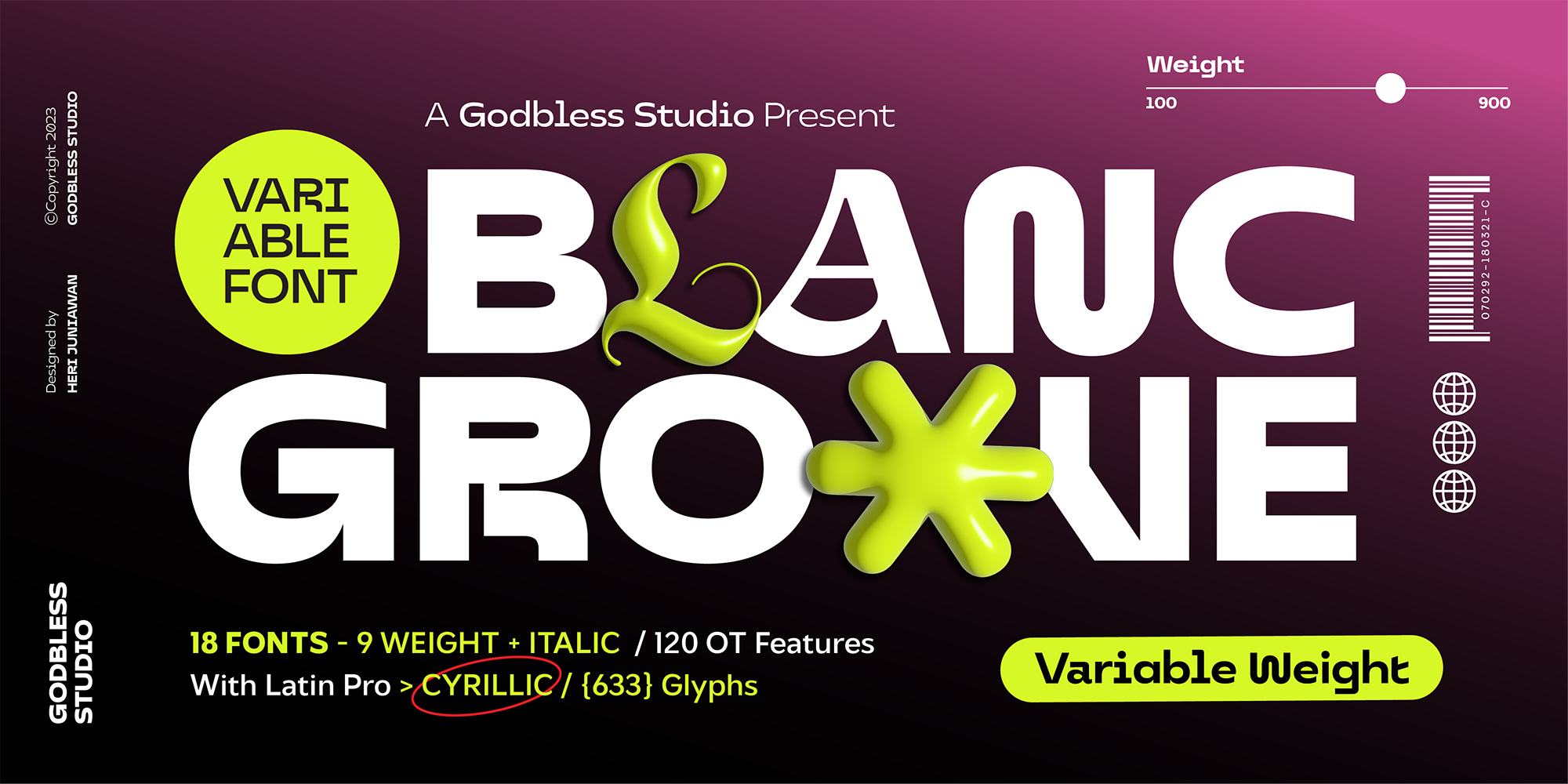
The Blanc Groove Font is an excellent choice for designs that demand a clean, modern, and often minimalist aesthetic with a touch of subtle sophistication. Imagine it providing crisp, elegant text for high-end fashion branding, adding a refined and airy feel to art gallery catalogs, or bringing a fresh, contemporary vibe to luxury product packaging. It's also perfectly suited for sleek website interfaces, editorial layouts that prioritize visual breathing room, and any project where you want to convey a sense of understated elegance, clarity, and modern design. With its balanced proportions and often open forms, the Blanc Groove Font is ideal for projects that aim for visual polish and a timeless impression.
What makes the Blanc Groove Font truly exciting is its remarkable ability to blend simplicity with distinct character, making it both highly versatile and subtly memorable. It’s designed for excellent readability across various mediums and sizes, ensuring your message is always understood without effort. This font strikes a harmonious balance between being neutral enough for widespread application and possessing just enough unique flair to give your designs an elevated feel. It injects a sense of sophisticated minimalism and clear communication into your projects, making it a reliable choice for establishing a refined and contemporary brand presence. The Blanc Groove Font Free Download offers a fantastic opportunity to experience this typeface's versatile capabilities.
The Blanc Groove Font family is typically designed to offer a comprehensive range of weights and styles, maximizing its adaptability for diverse design requirements. While specific family members can vary, you can often expect to find:
Blanc Groove Thin
Blanc Groove Light
Blanc Groove Regular
Blanc Groove Medium
Blanc Groove SemiBold
Blanc Groove Bold
Blanc Groove Black
Blanc Groove Italic (or Oblique versions for various weights)
These extensive variations provide designers with ample flexibility to create intricate visual hierarchies, from delicate accents to impactful headlines, ensuring optimal performance across a wide array of applications while maintaining the font's signature clear and contemporary appearance.